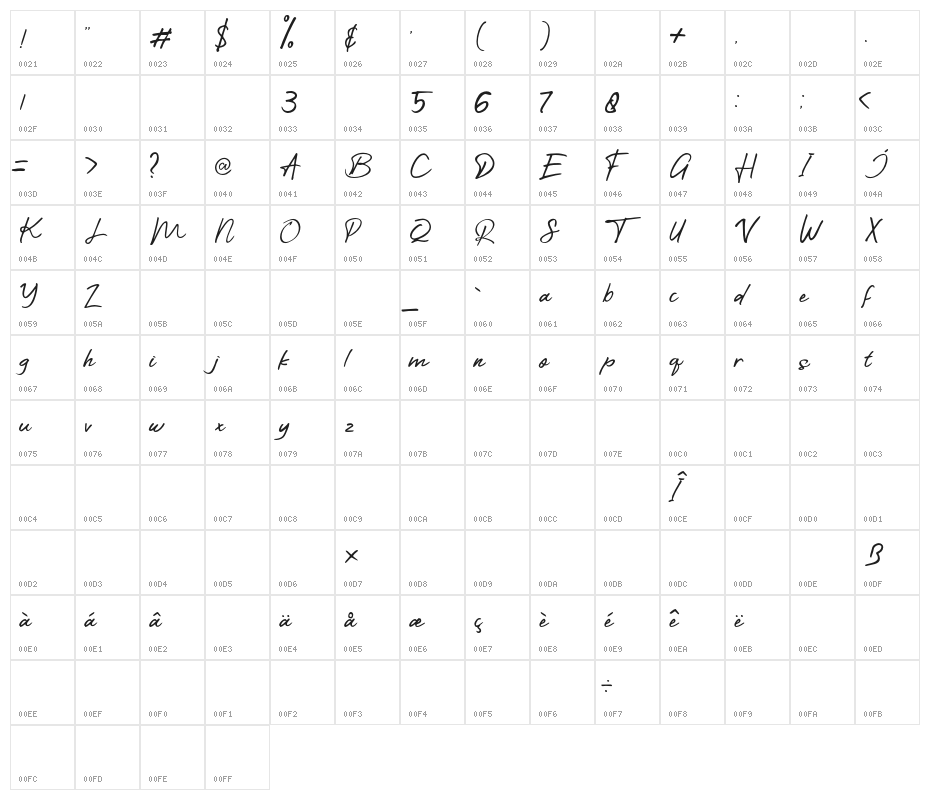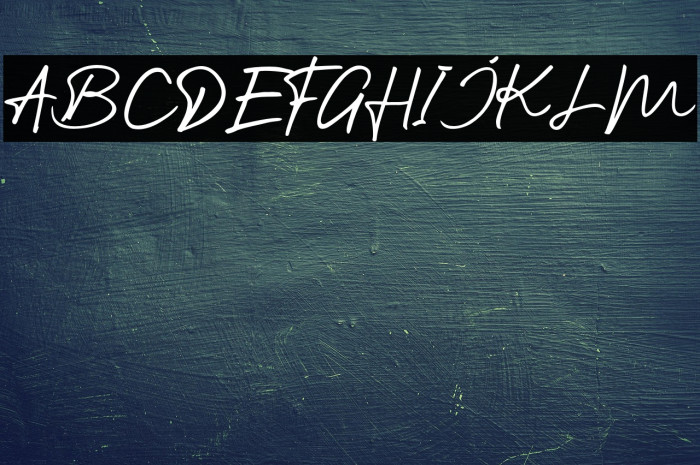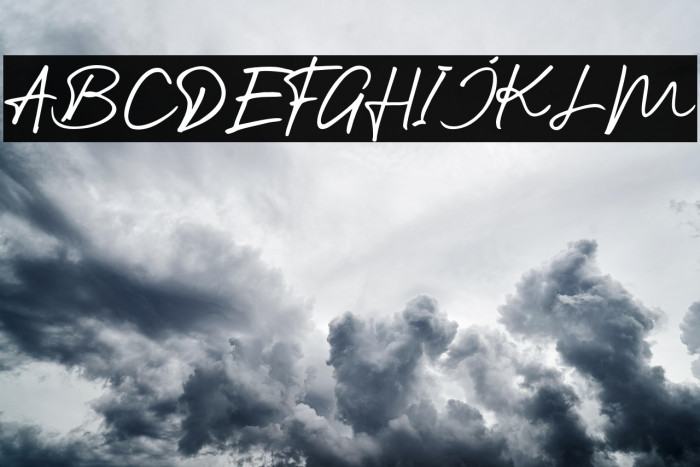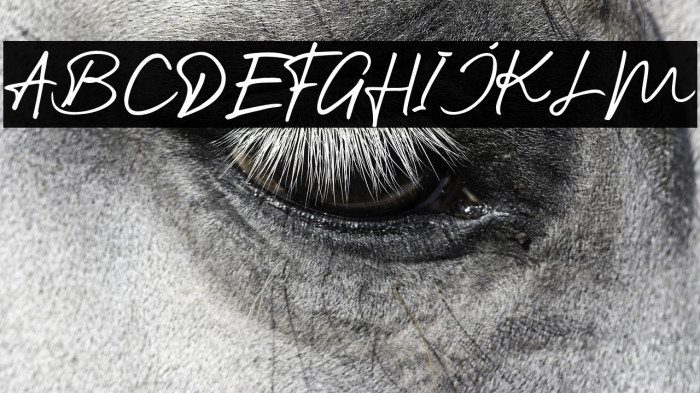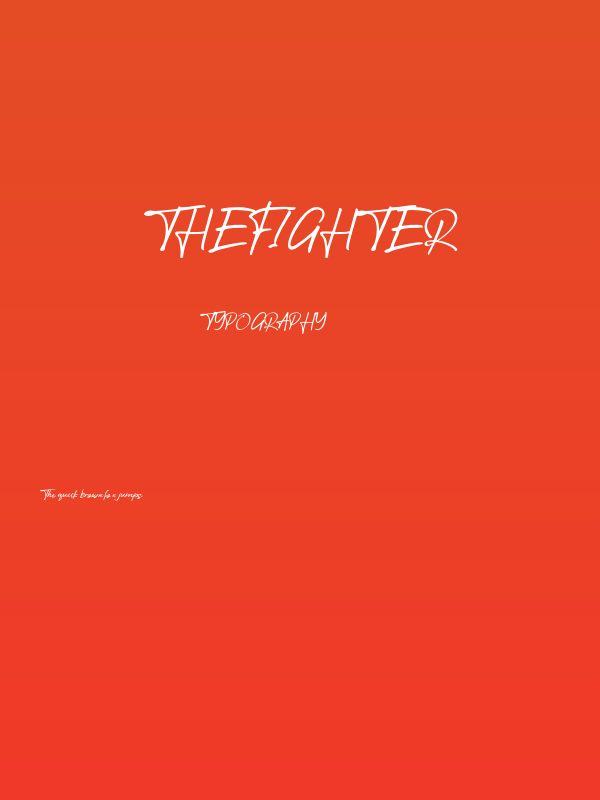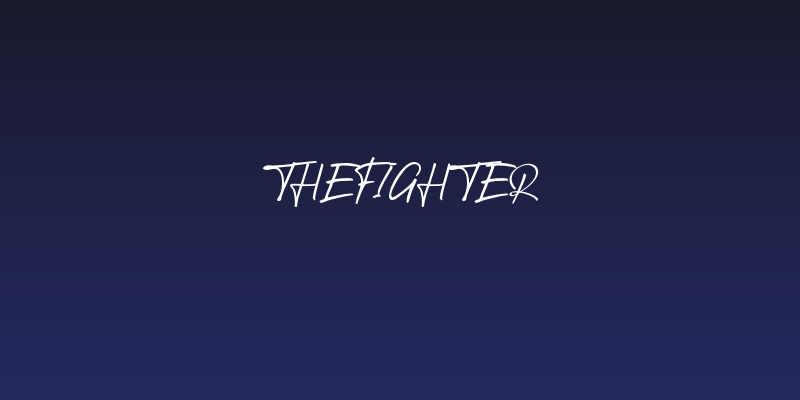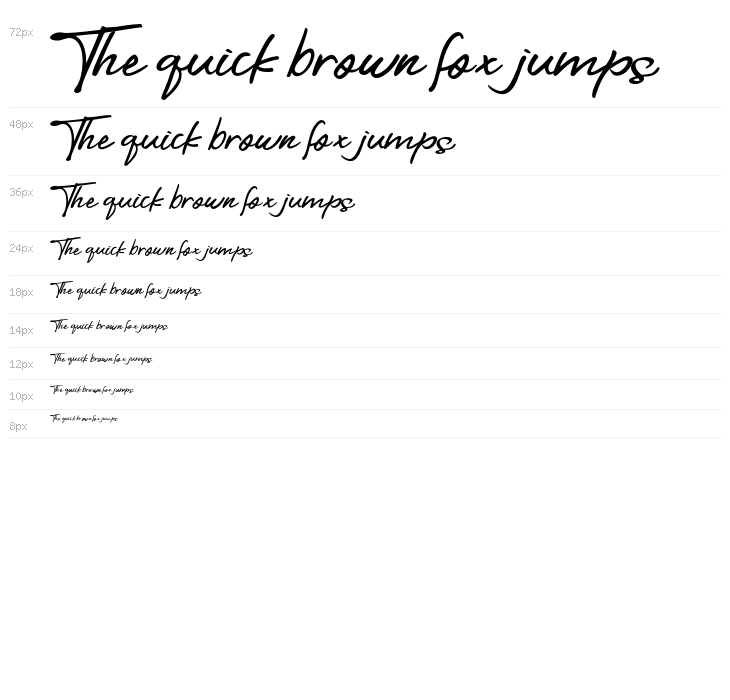
TheFighter Font
TheFighter Description
This font exudes a dynamic and energetic vibe with its flowing, cursive style. The letters are crafted with a smooth, continuous stroke that mimics the fluidity of handwriting. The uppercase letters are bold and slightly slanted, giving them a sense of movement and flair. The lowercase letters maintain the same fluidity, with elegant loops and curves that enhance the handwritten aesthetic. The numbers and special characters are consistent with the overall style, adding a playful yet sophisticated touch. This font is perfect for projects that require a personal, artistic feel.
| Use Case | Logos, Invitations, Artistic projects |
| Proposed Projects | Ideal for greeting cards, invitations, personal branding, and artistic projects. |